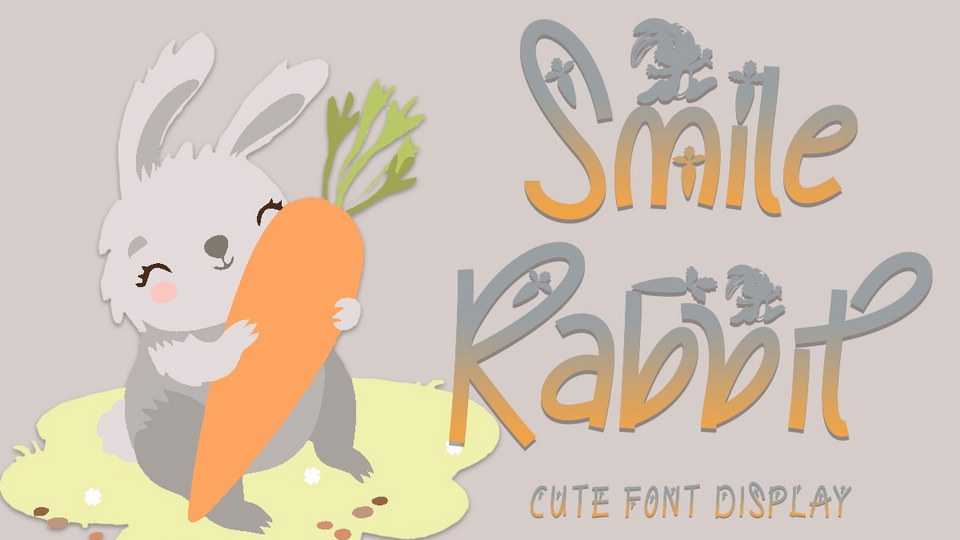
Download Smile Rabbit font, a unique and beautiful display typeface. Smile Rabbit is perfect for Easter celebrations, book titles, animal letters, posters, prints, logos, posters, banners, and branding.